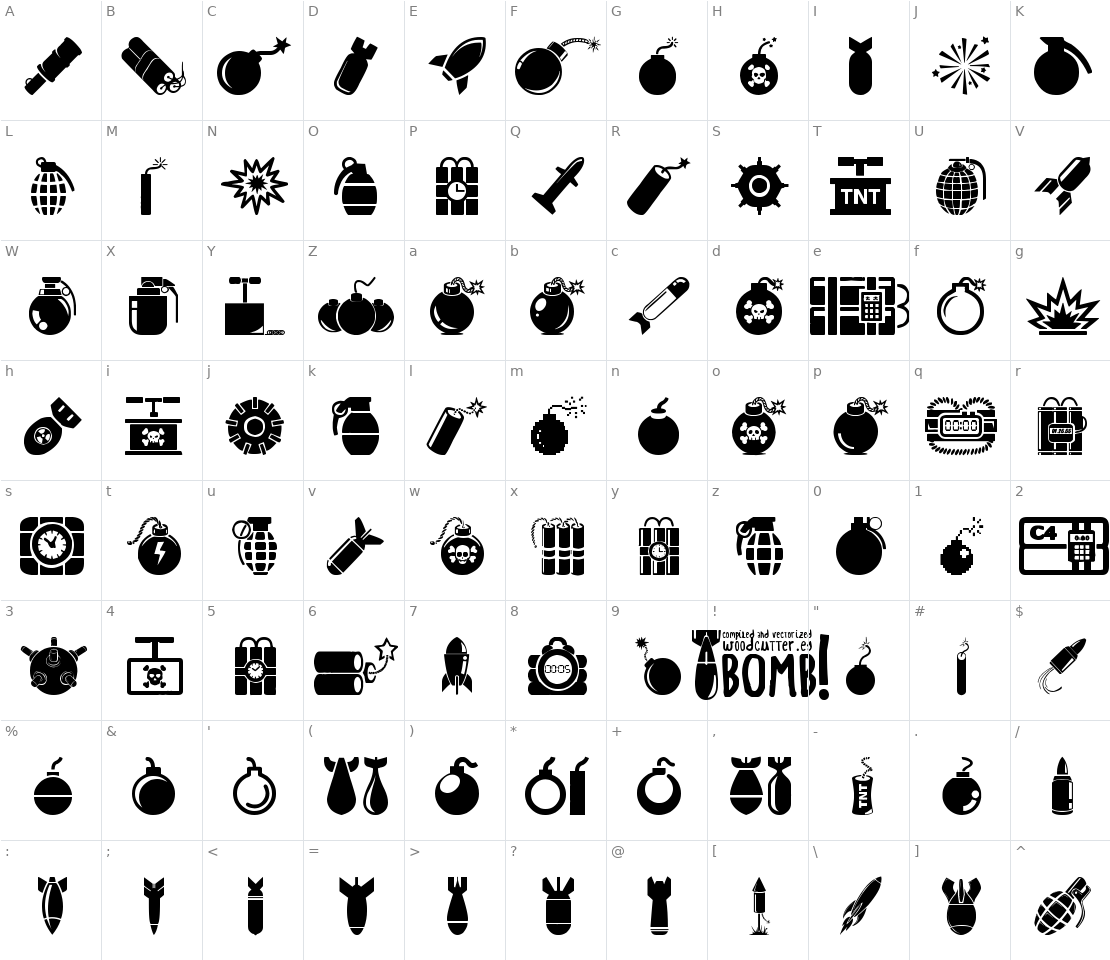
Bomb!
Bomb! is a dingbat font from Woodcutter made up entirely of bomb and explosive icons, from classic round fuse bombs to dynamite bundles and detonators. It's the kind of hyper-specific symbol set that's surprisingly useful for comics, game assets, warning graphics, or playful illustrative work where you need quick, ready-made explosive imagery without firing up a vector editor.